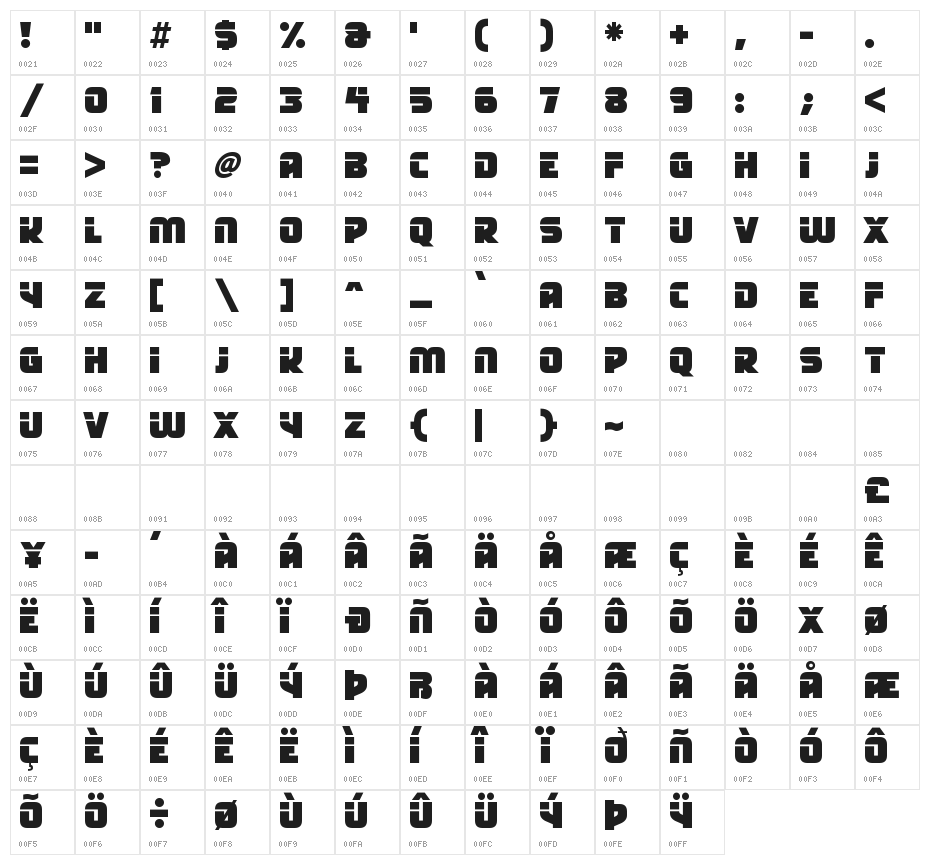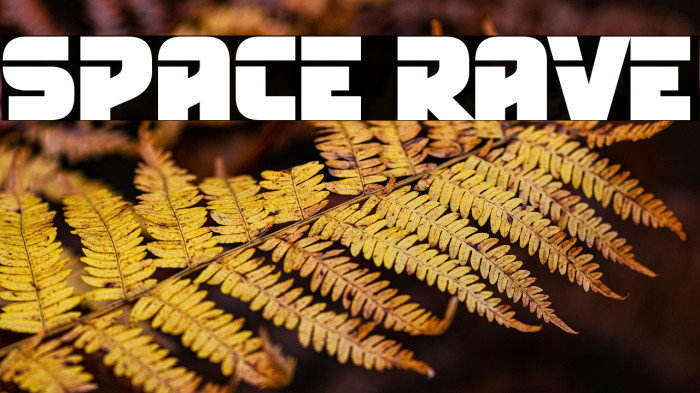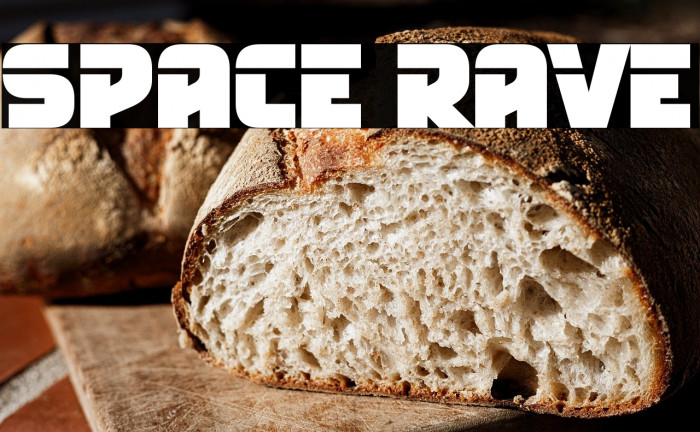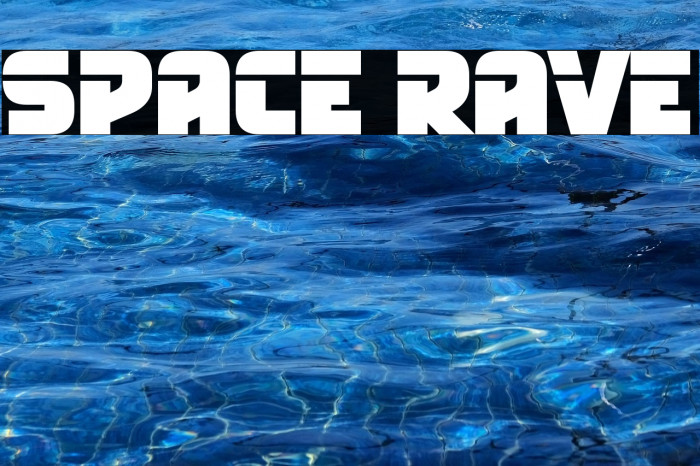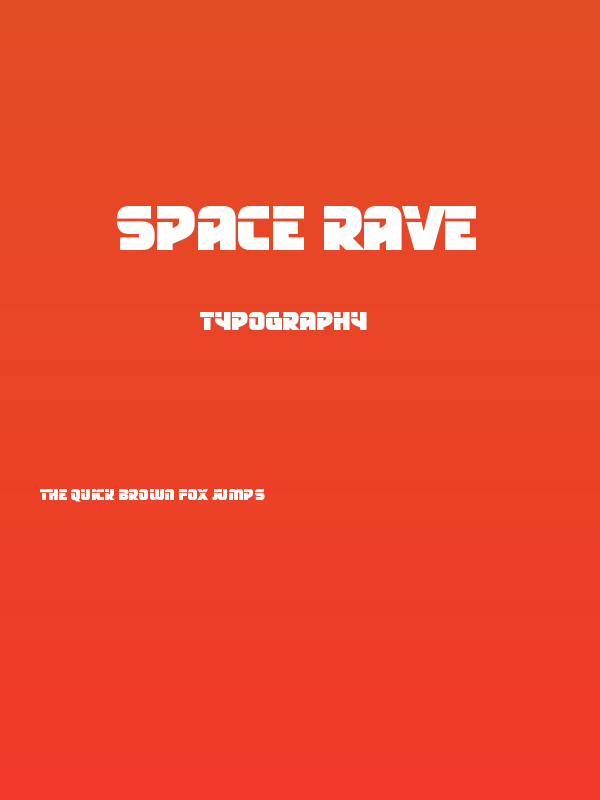
Space Rave Font
Space Rave Description
This bold, futuristic typeface features a geometric design with sharp angles and a blocky structure. The characters are uniformly wide, creating a cohesive and impactful appearance. The uppercase and lowercase letters maintain a consistent style, with the lowercase mirroring the uppercase in form. Numbers and special characters are designed to match the boldness and angularity of the alphabet, ensuring a unified look across all elements. The font's strong presence makes it ideal for attention-grabbing designs.
| Overall Style | Futuristic |
| Proposed Projects | Ideal for sci-fi themed posters, video game titles, technology branding, and futuristic event flyers. |